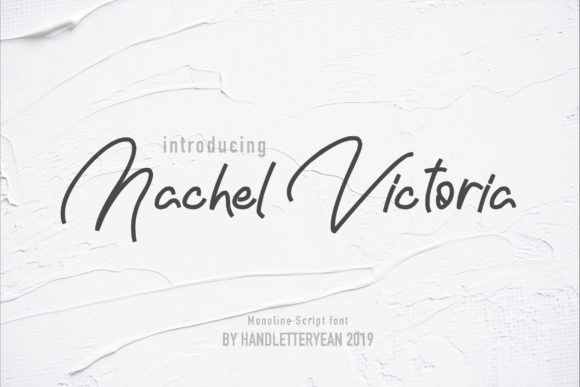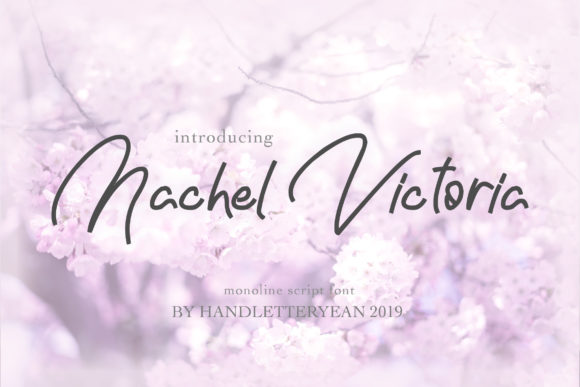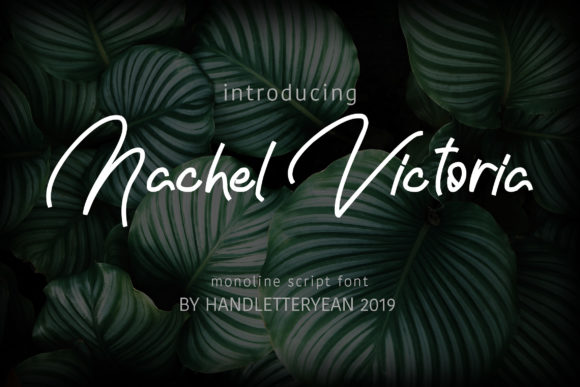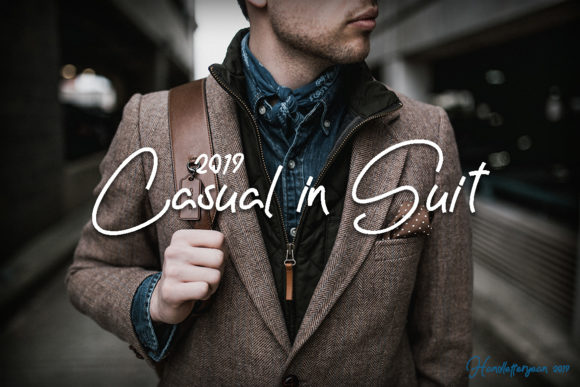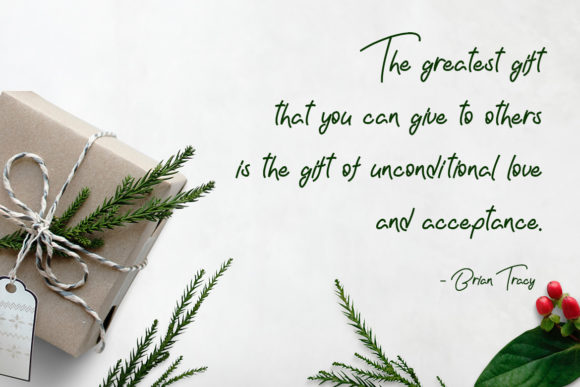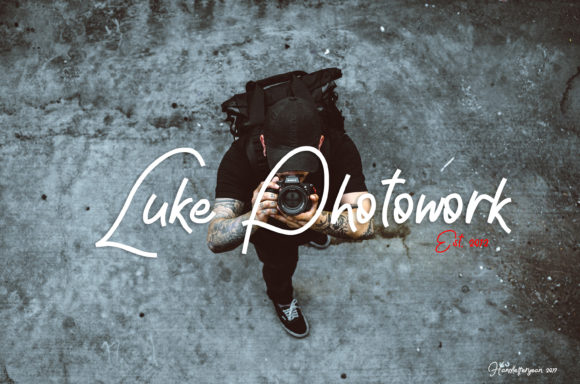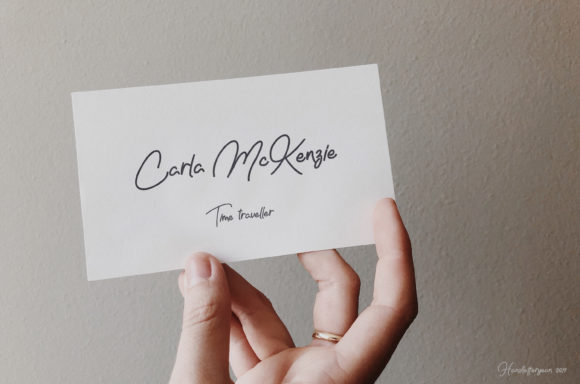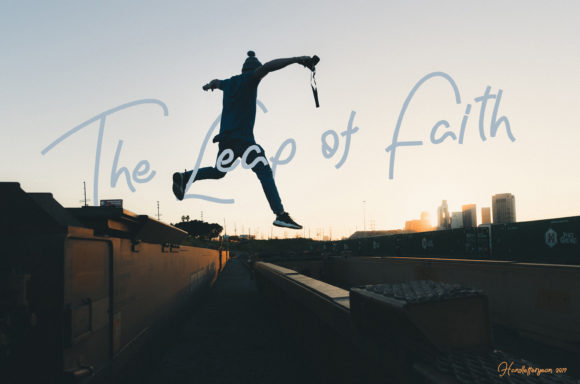
Nachel Victoria Font
The Nachel Victoria is a simple, yet aesthetically beautiful typeface. It has a modern script look which can be used for business cards, logos, packaging, branding, magazines, quotes, and much more!